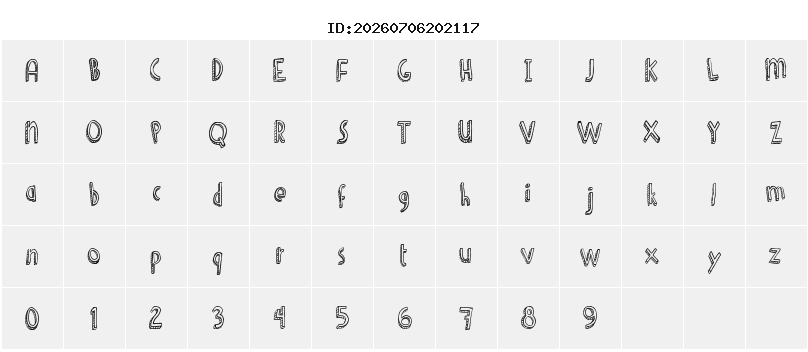
• Font Name: Denne Shuffle Euro Hollow
• Designer: Denise Bentulan
Denne Shuffle Euro Hollow.ttf is a modern, elegant sans-serif font designed for ultimate readability and visual harmony. Perfect for branding, headlines, web design, and print materials.